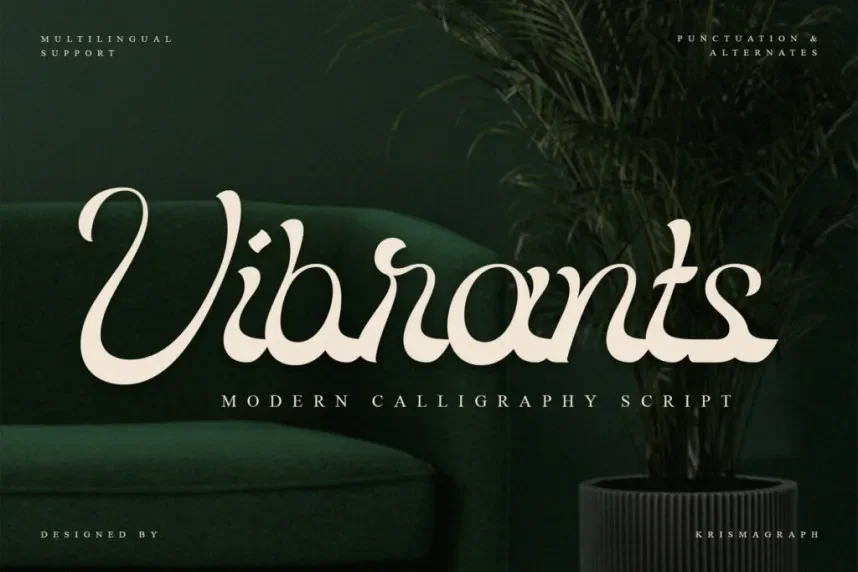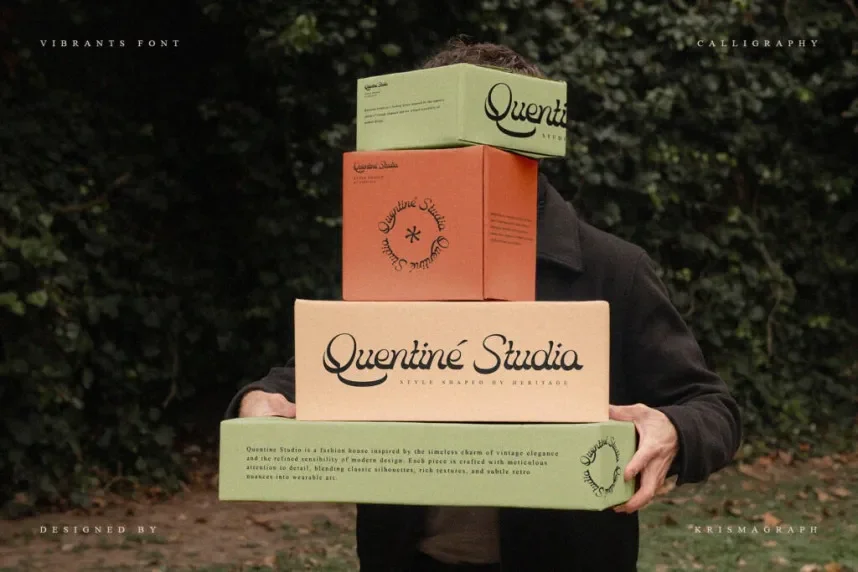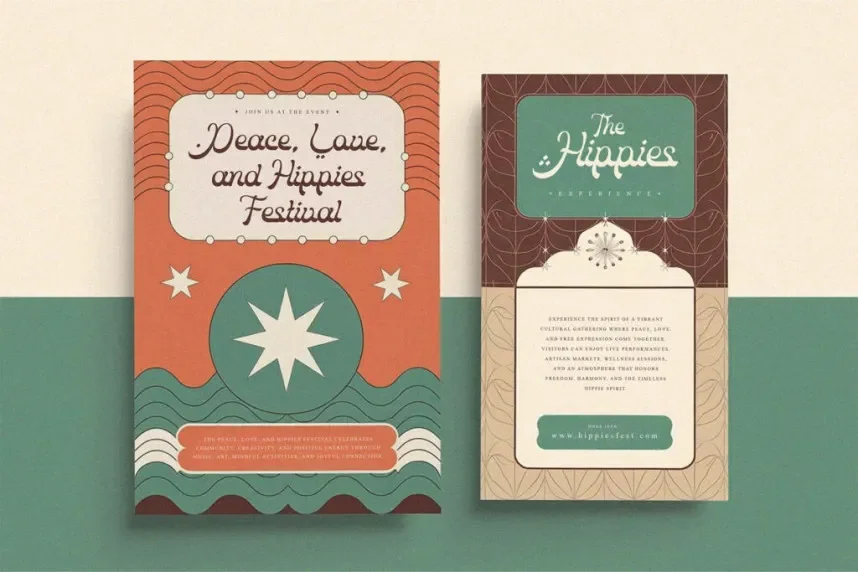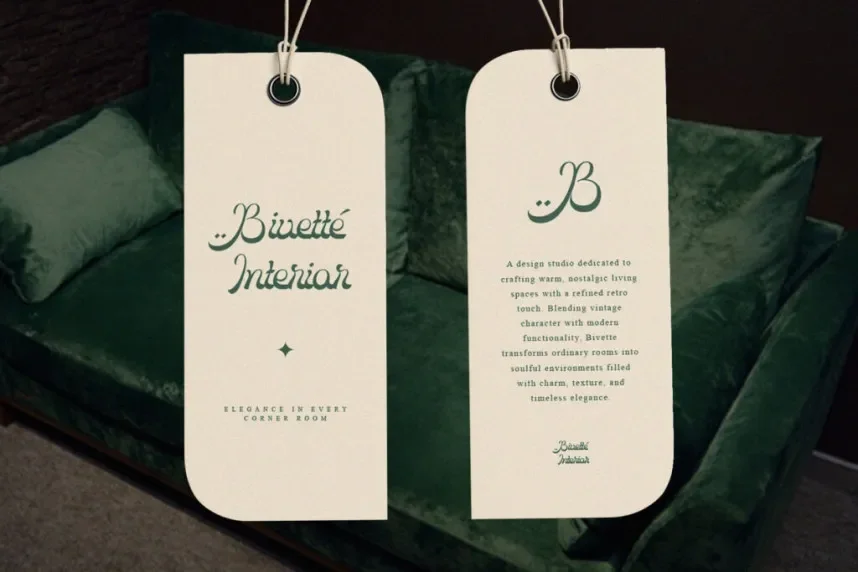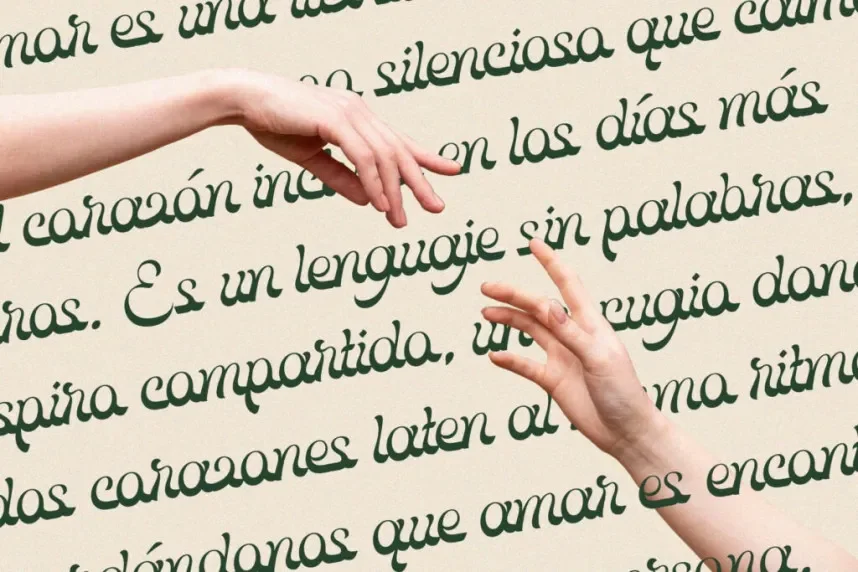
Vibrants Font is a modern calligraphy script typeface with smooth, flowing letterforms and elegant swashes. The font’s artistic strokes give it a dynamic, contemporary feel, making it perfect for projects that require a stylish, yet readable script.
Ideal for wedding invitations, brand logos, and creative projects, Vibrants Font pairs well with simple sans-serif fonts for body text. Available in TTF and OTF formats, it includes a commercial-use license. Be sure to check licensing details before commercial use.